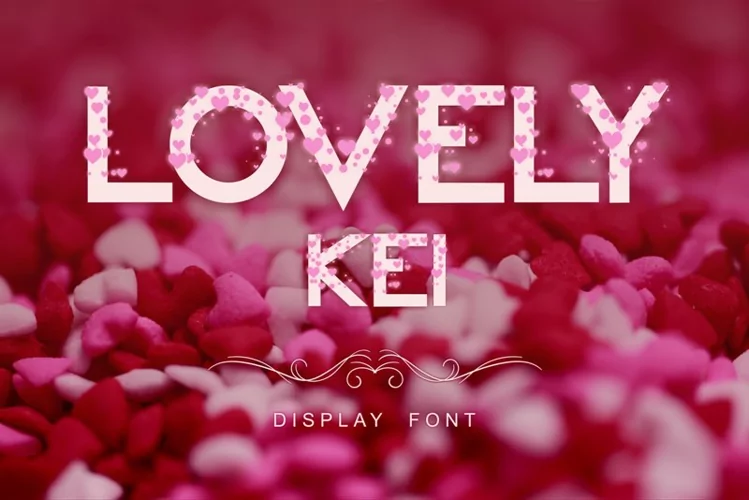
Lovely Kei
Lovely Kei font is a unique and romantic display font that delivers an authentic font experience. A new font display with a frothing feel full of romantic love icons, perfect for your extraordinary project this month. Get inspired by its modern elegance!